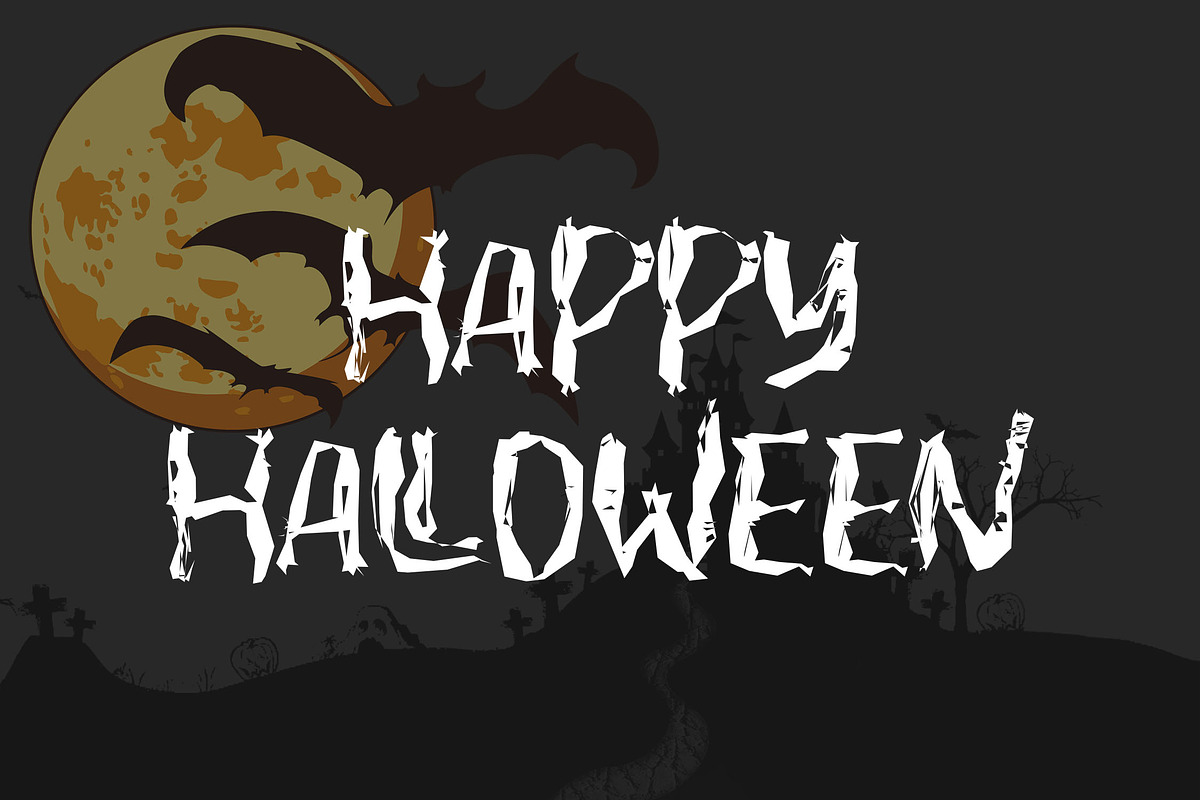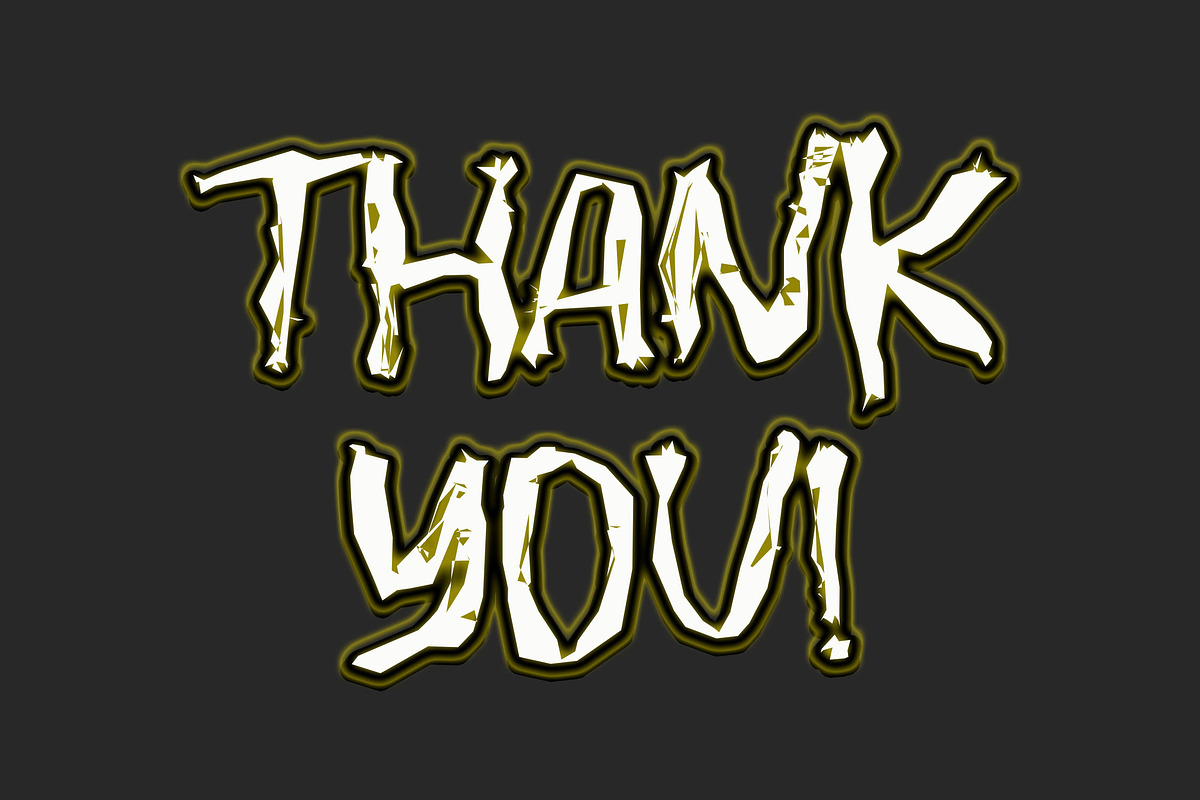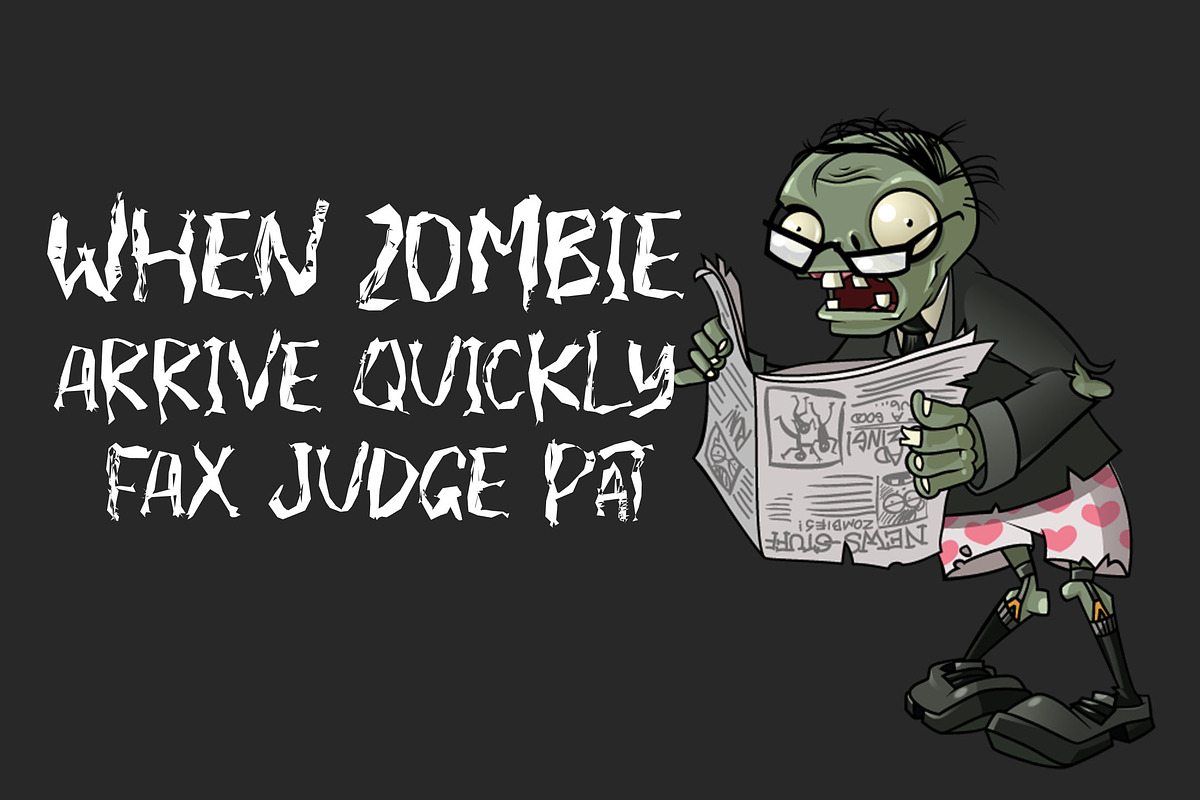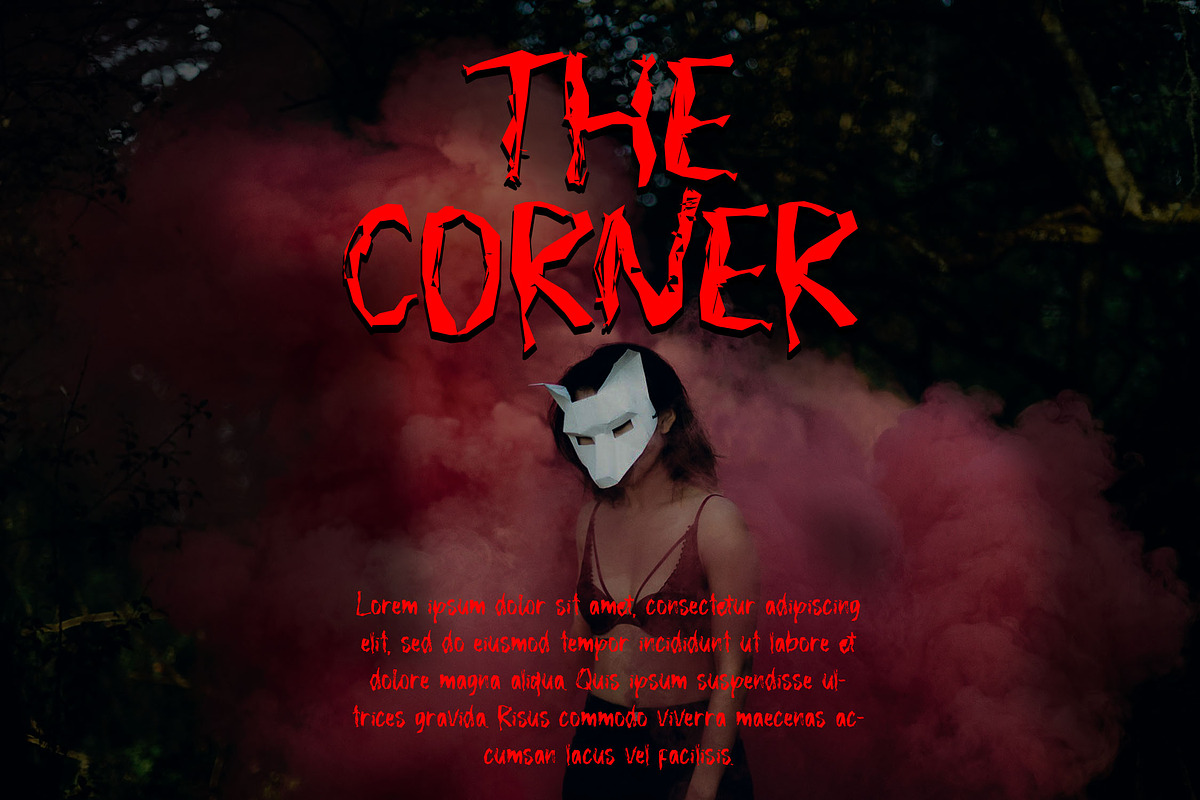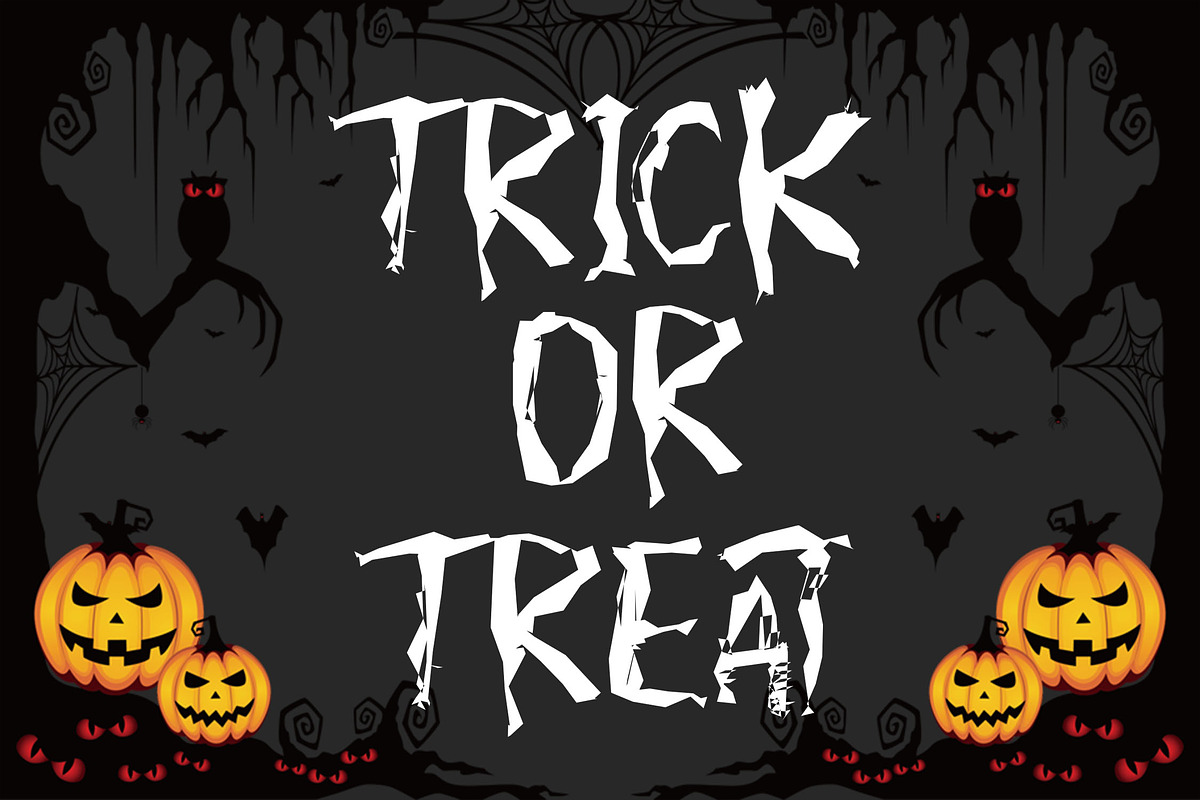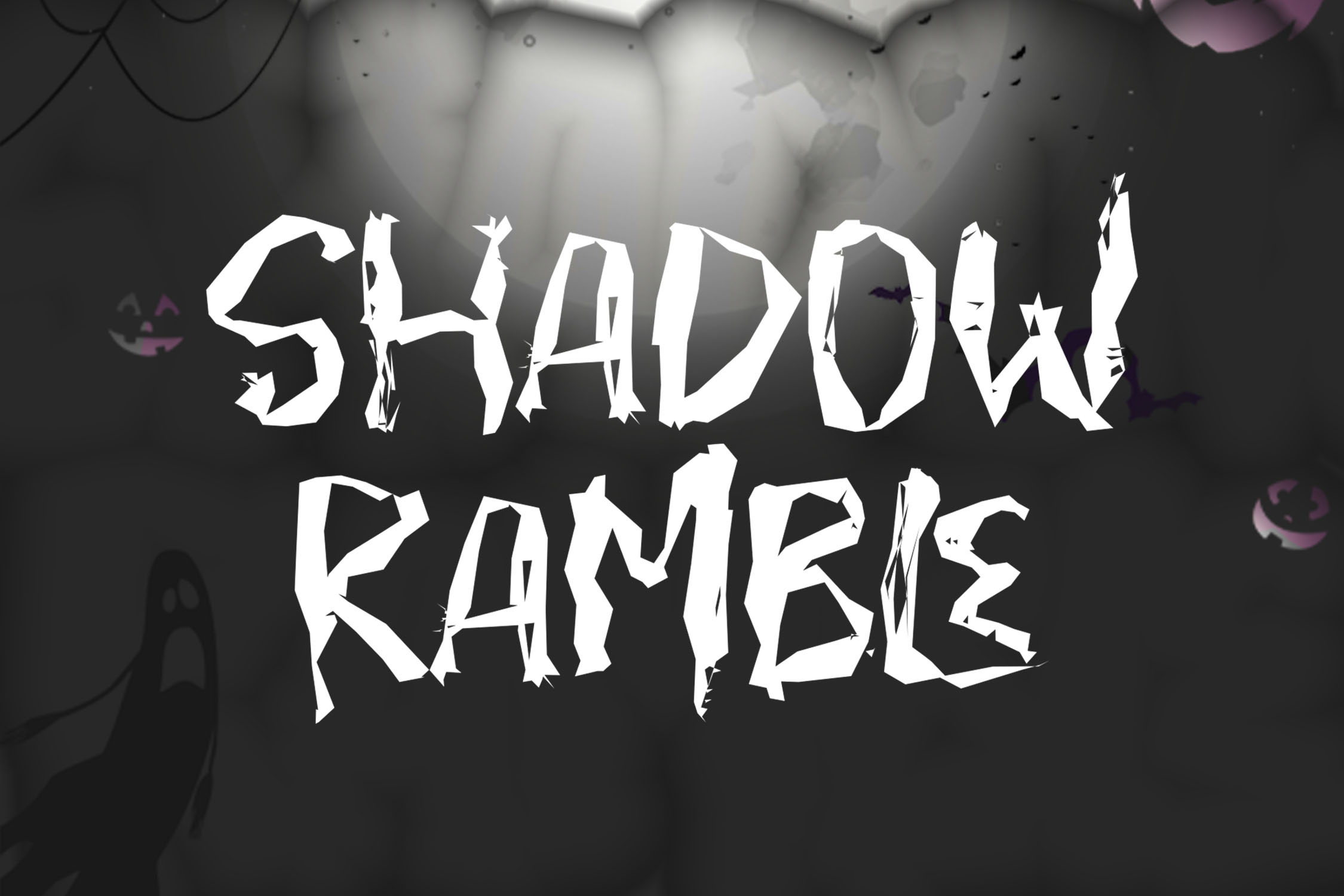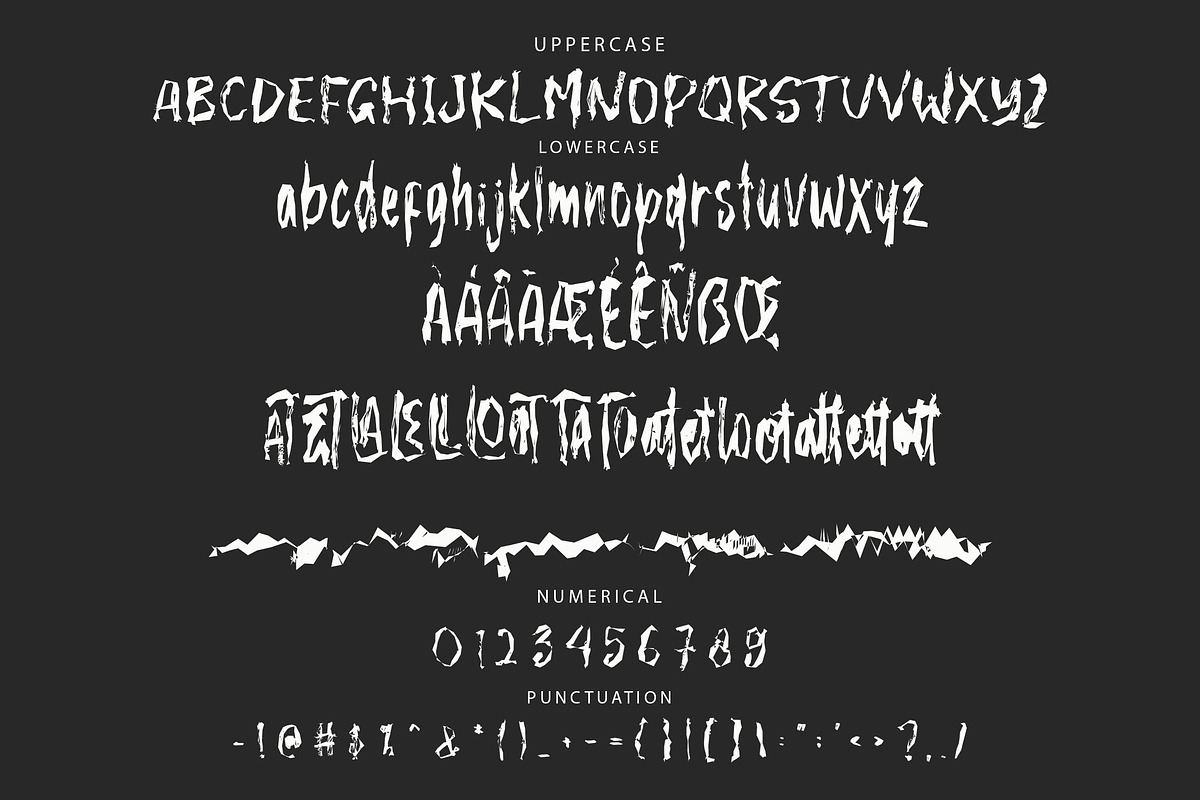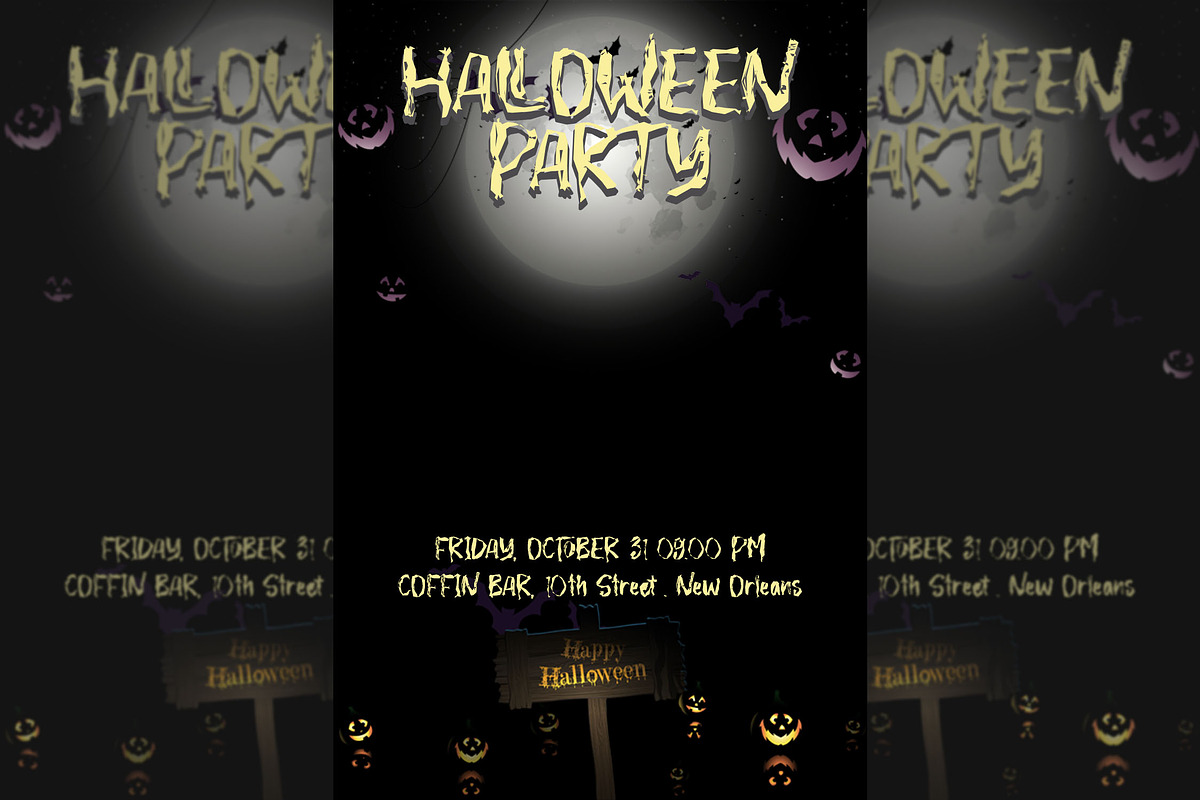
SHADOW RAMBLE - Halloween Font
SHADOW RAMBLE is a horror Halloween themed font with a very unique shapes character. This font is perfect for Halloween card and Halloween banner designs. This font is suitable for making previews and covers, horror logo designs, shirt designs, and other horror graphic needs.